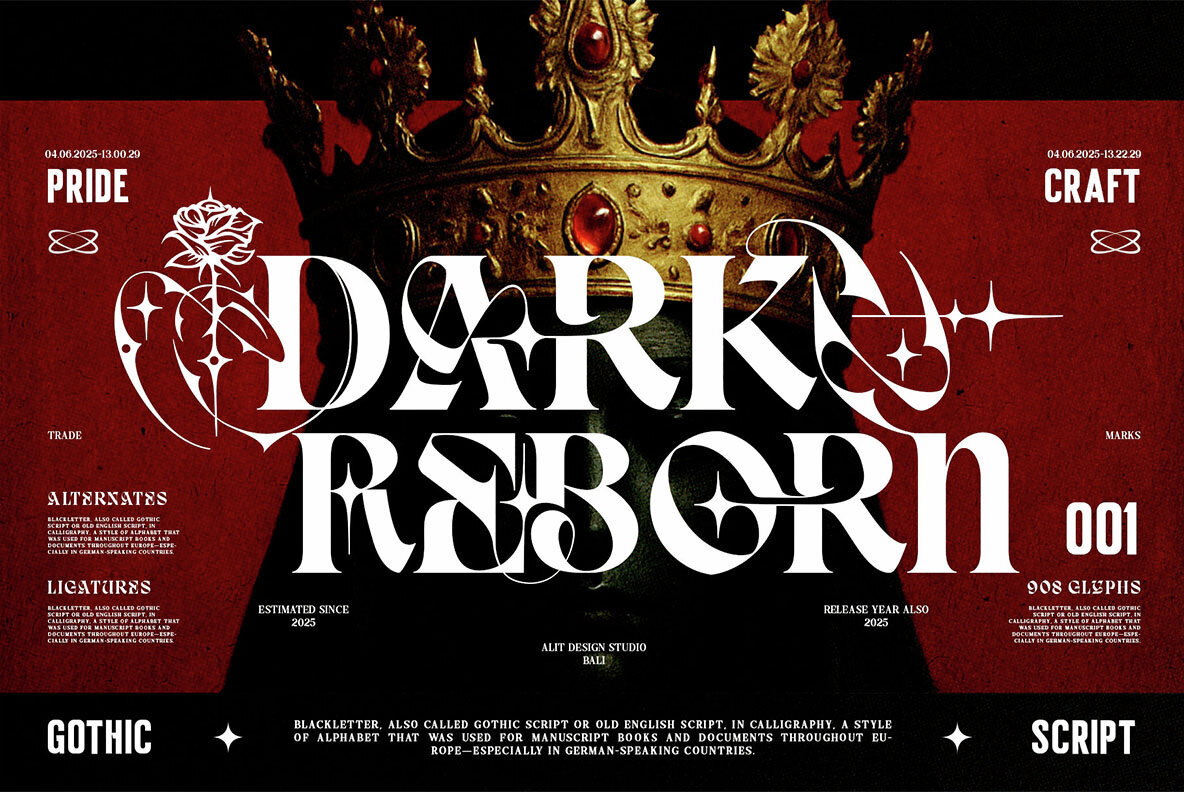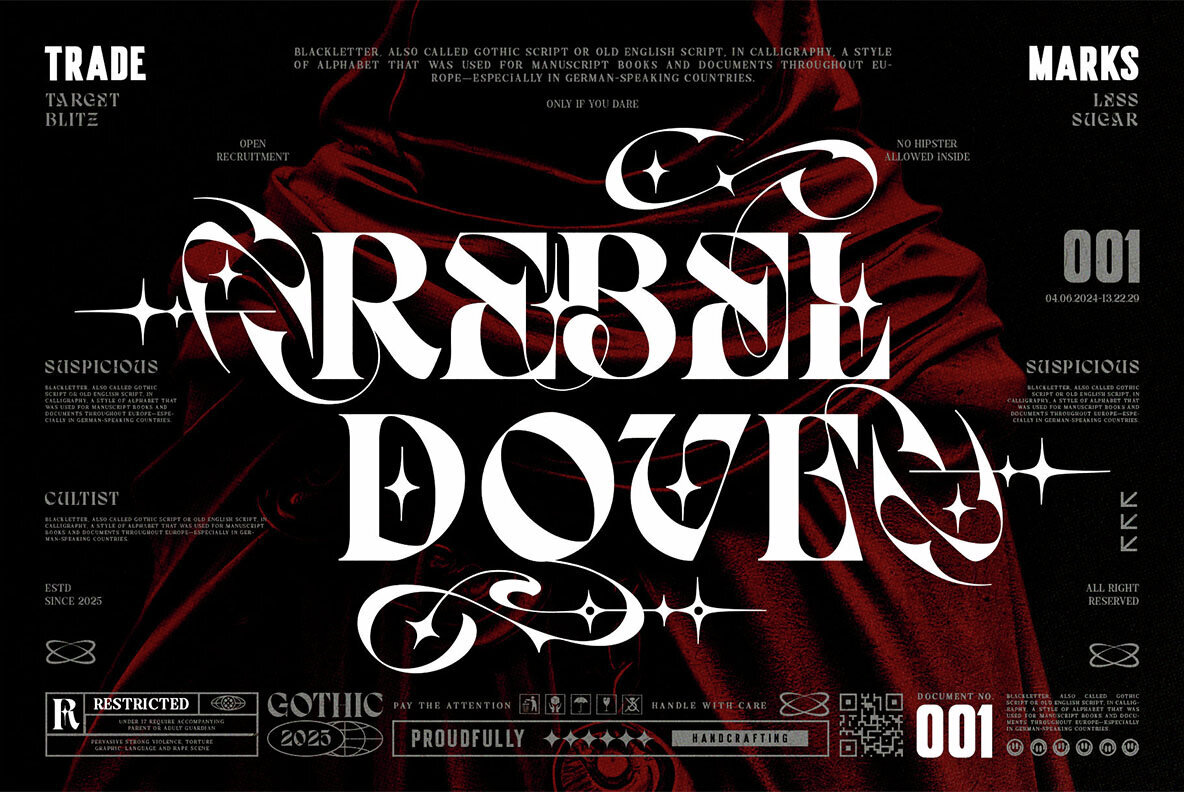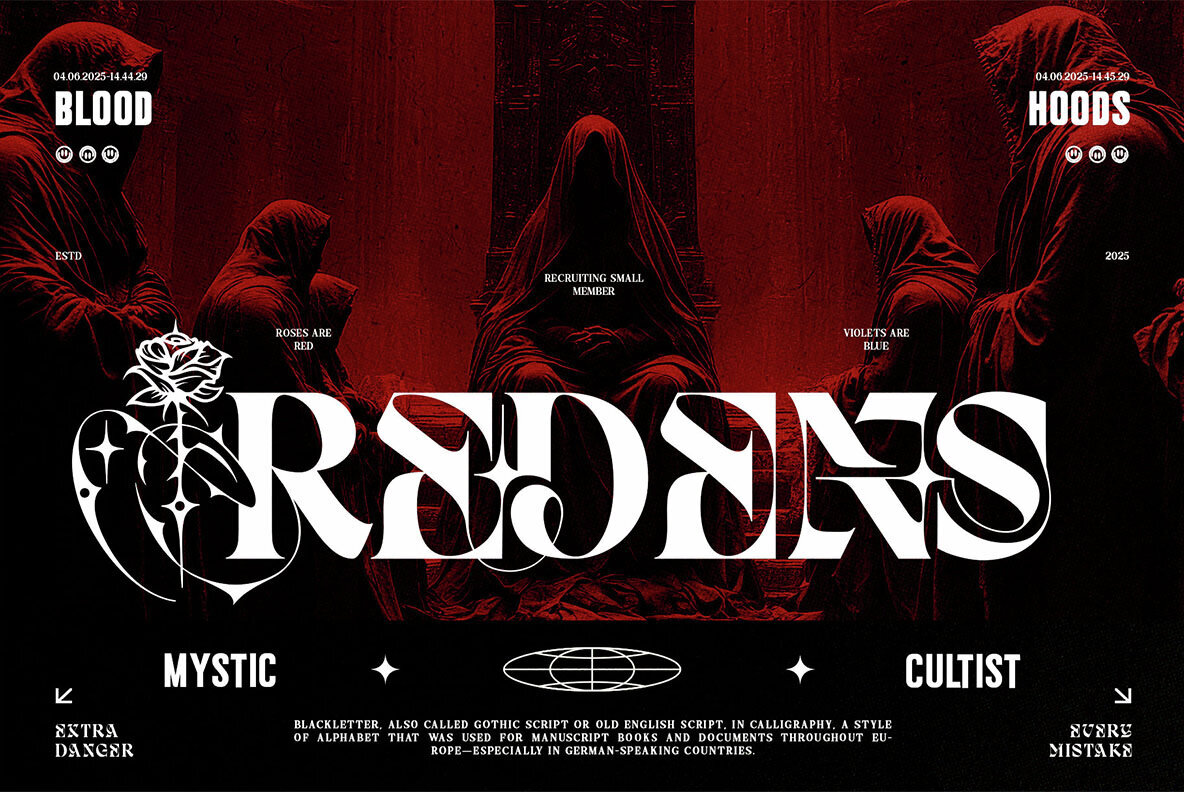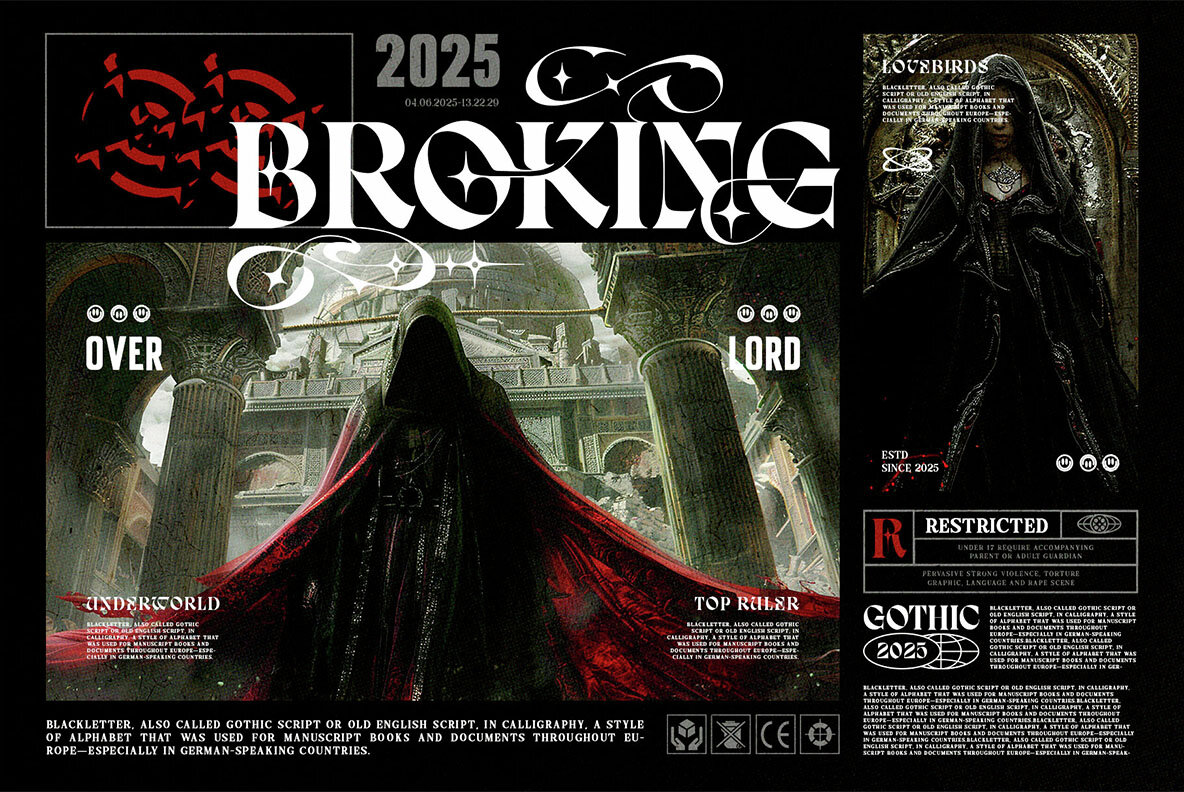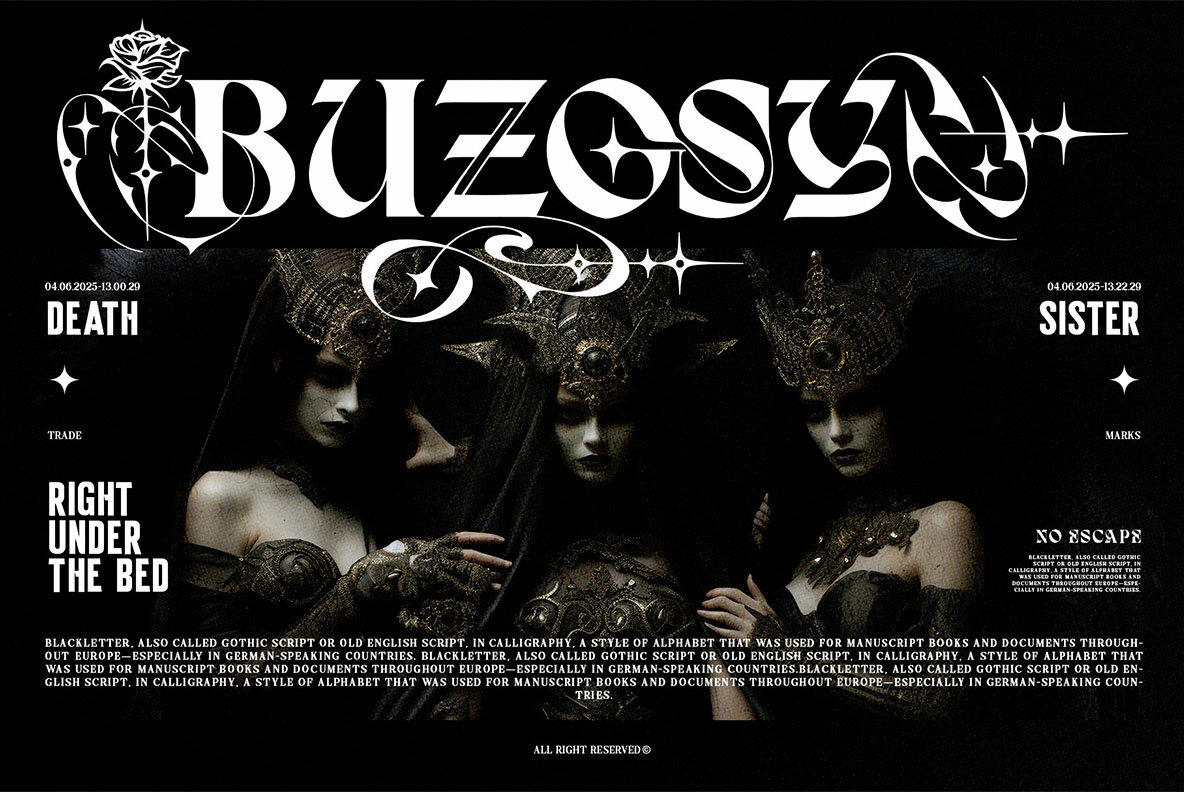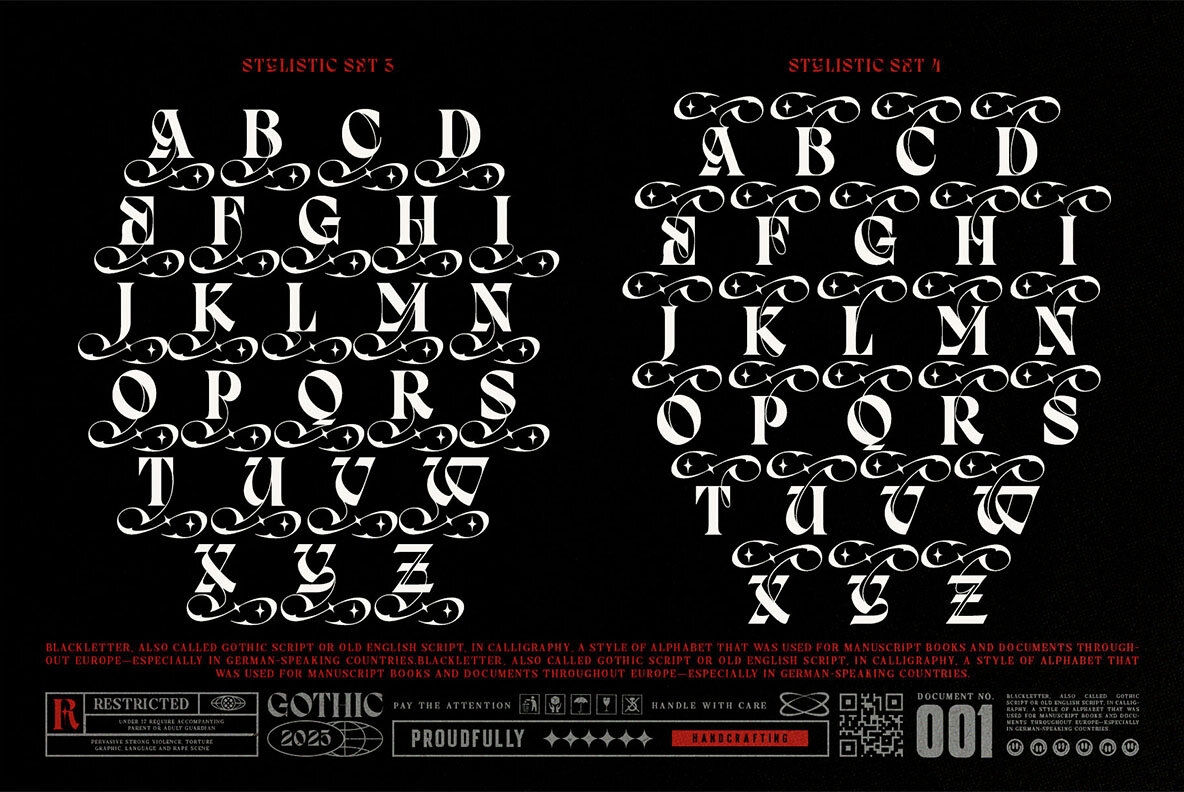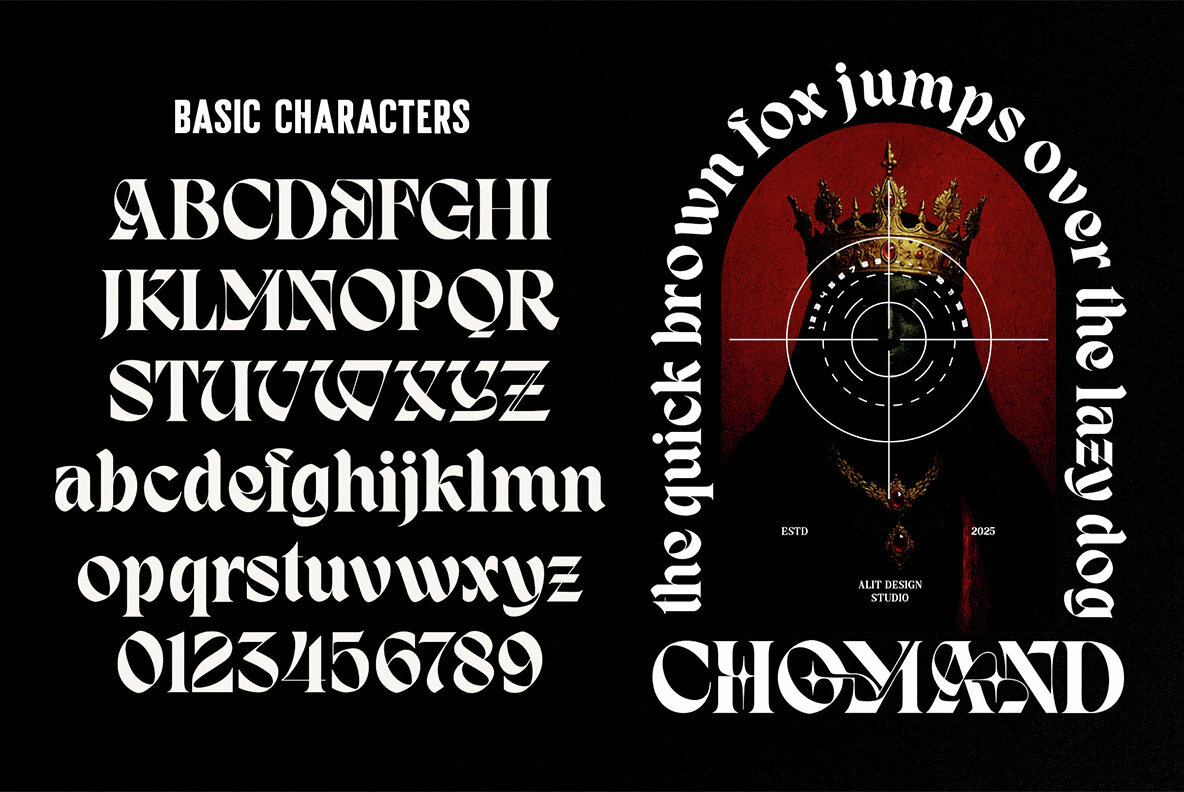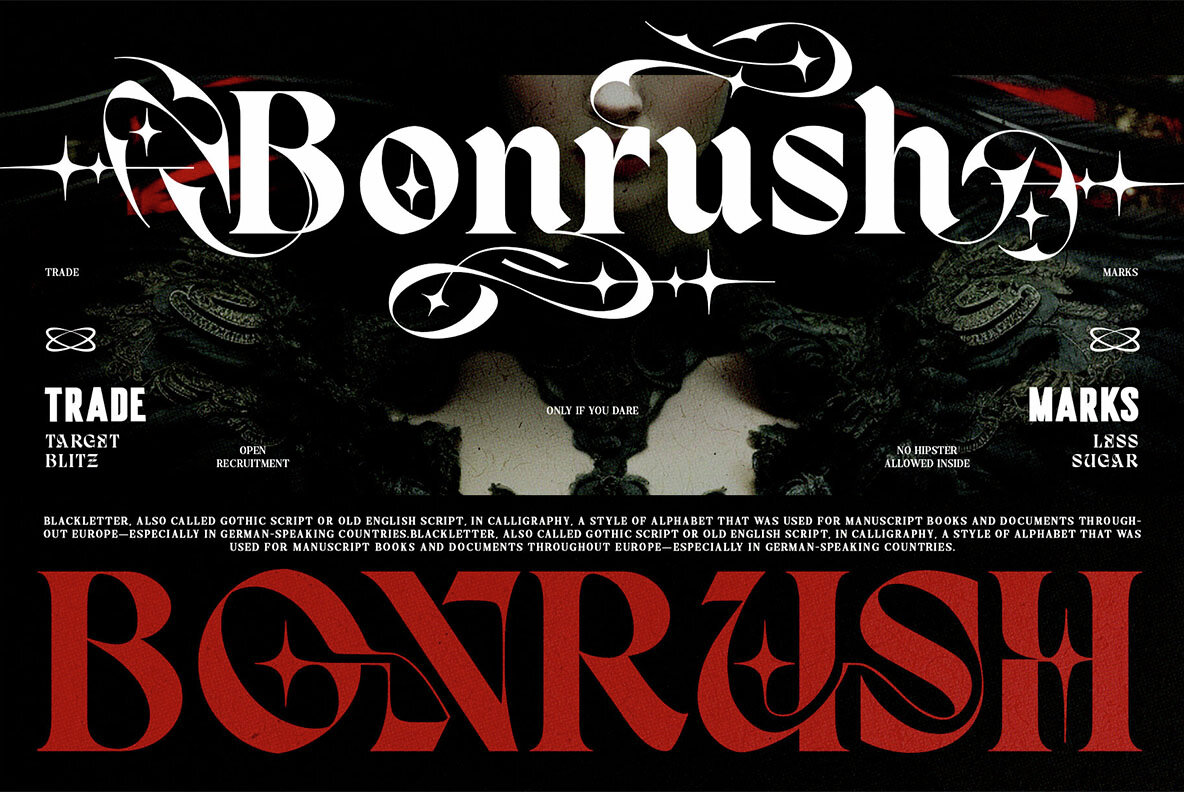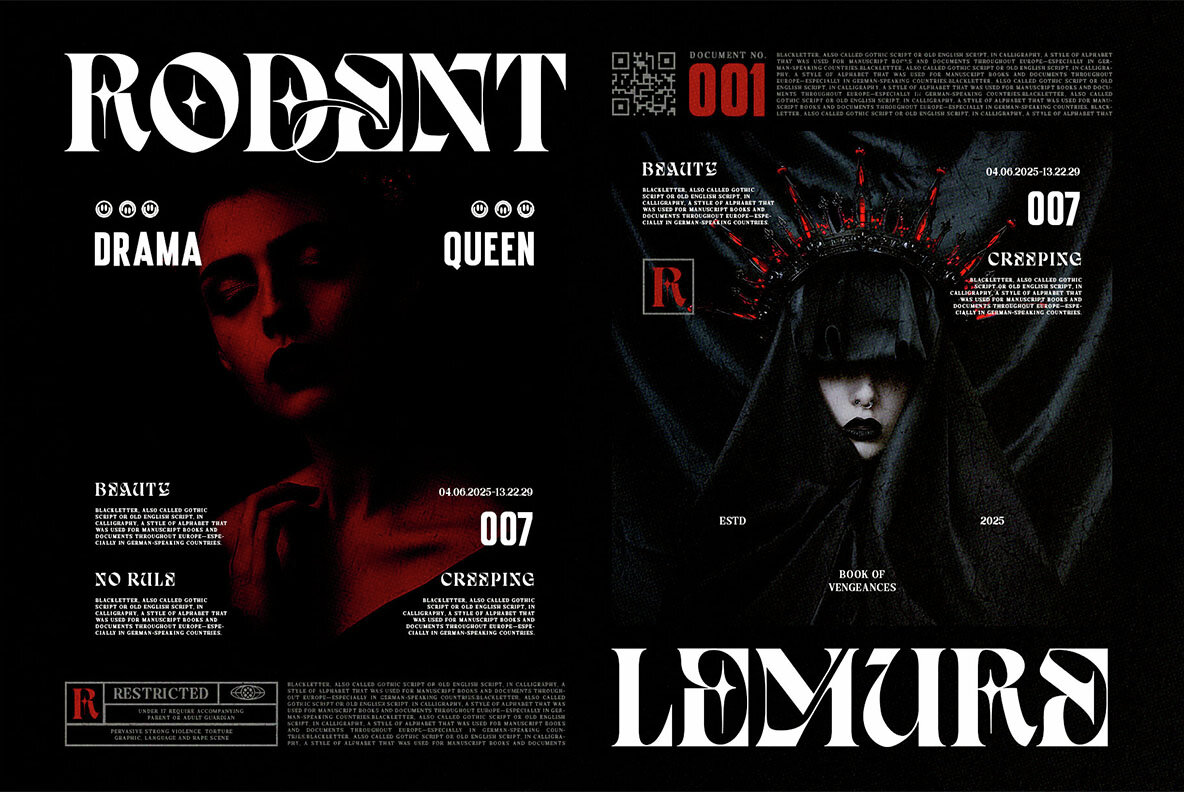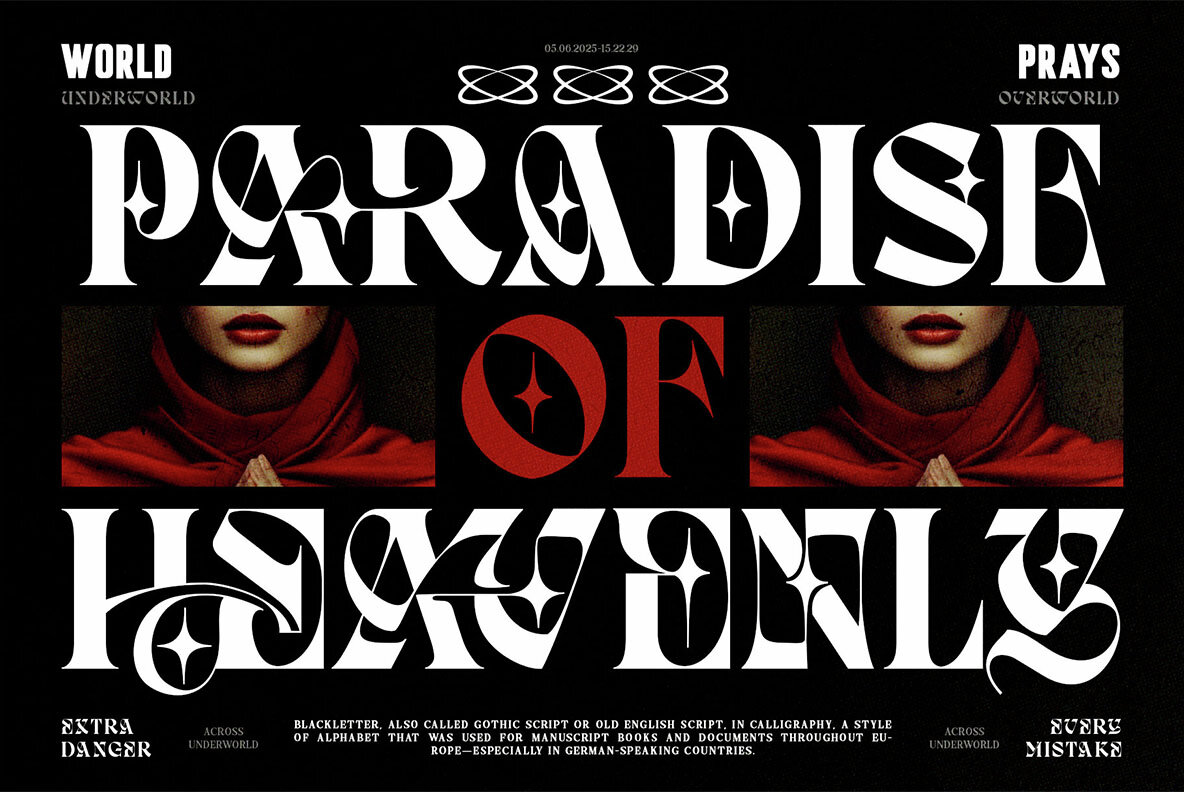
Step into a realm where tradition and modernity embrace harmoniously with Dark Reborn. Designed by Alit Design, this typeface is a daring blend of Gothic calligraphy and cutting-edge design. With its bold serif-Blackletter hybrid structure, Dark Reborn transcends mere typeface, becoming a visual language of power, pride, and dark beauty. Dark Reborn draws inspiration from the illustrious Blackletter scripts, once revered in medieval manuscripts and royal decrees. It redefines these with bold, modern serifs, precise geometry, and ornate detailing, resulting in a striking modern Gothic typeface. Ideal for monumental headlines, distinctive branding, and artistic compositions, its tribal-style swashes and rose-inspired alternate glyphs infuse a mythical essence, perfect for luxury, occult, fashion, music, tattoo, or high-concept creative endeavors. Dark Reborn is more than a font; it's a visual revival of forgotten script styles, rejuvenated through contemporary design. Whether crafting a royal manifesto, a rebellious brand identity, or a mystic narrative, let Dark Reborn bestow a regal quality to your words.Dark Reborn Typeface: A Bold Fusion of Gothic Heritage and Modern Elegance
Typeface Concept
Signature Features